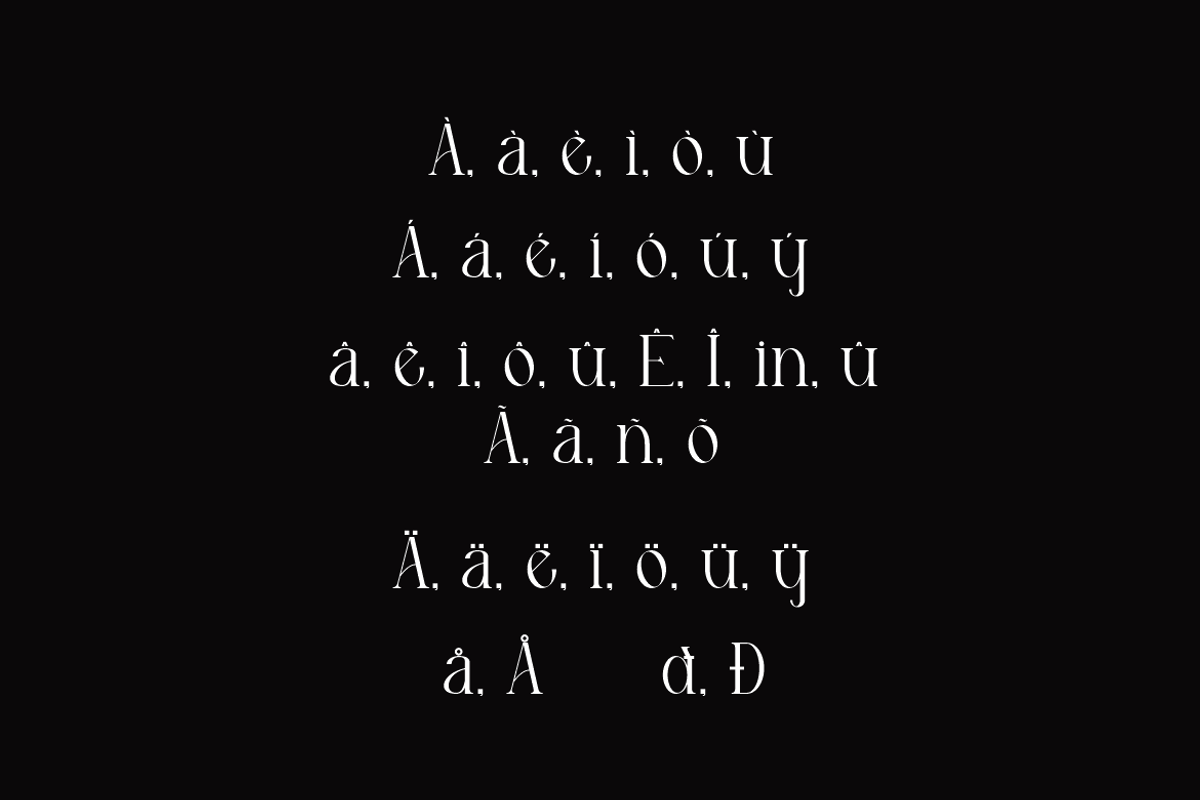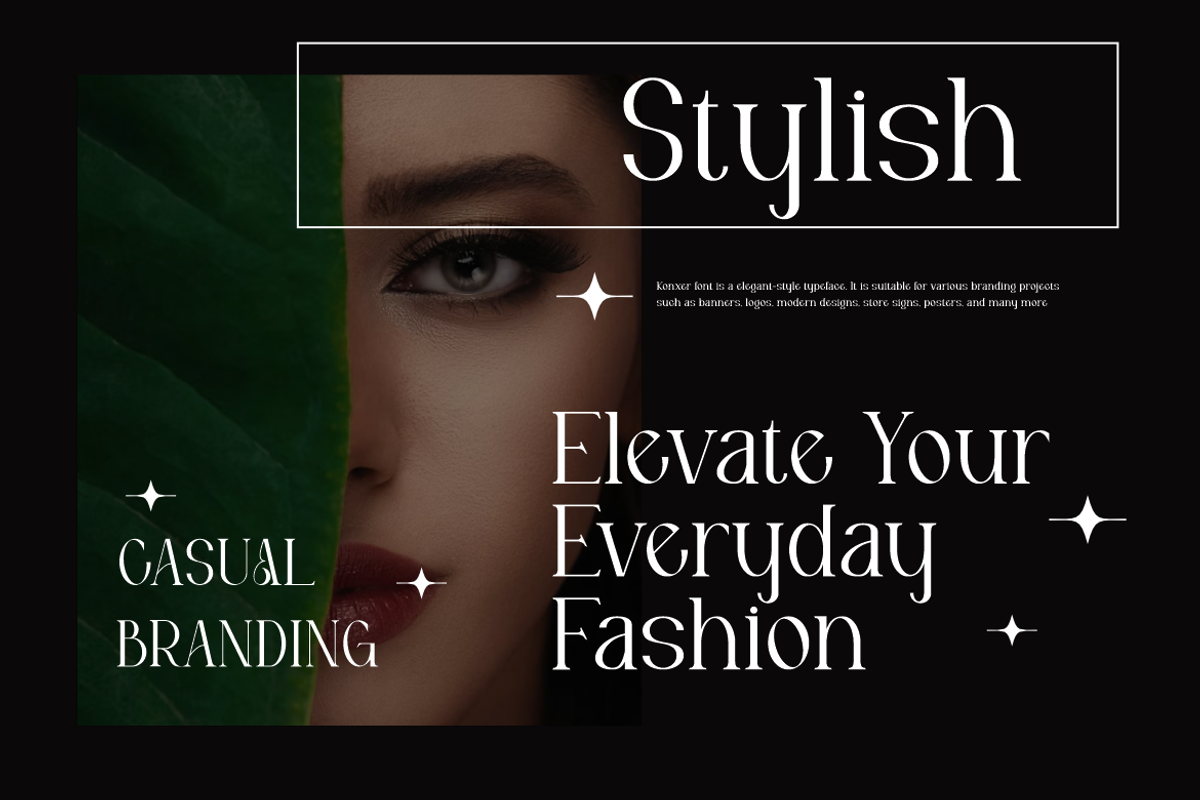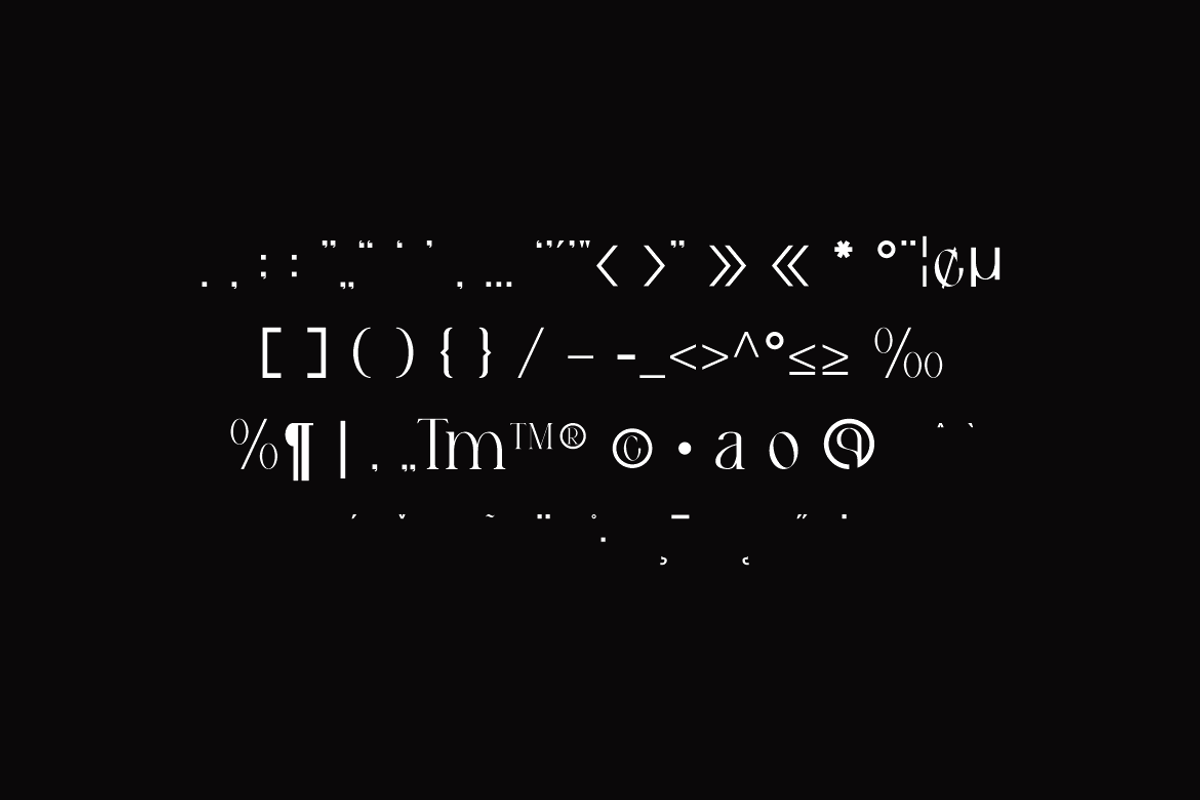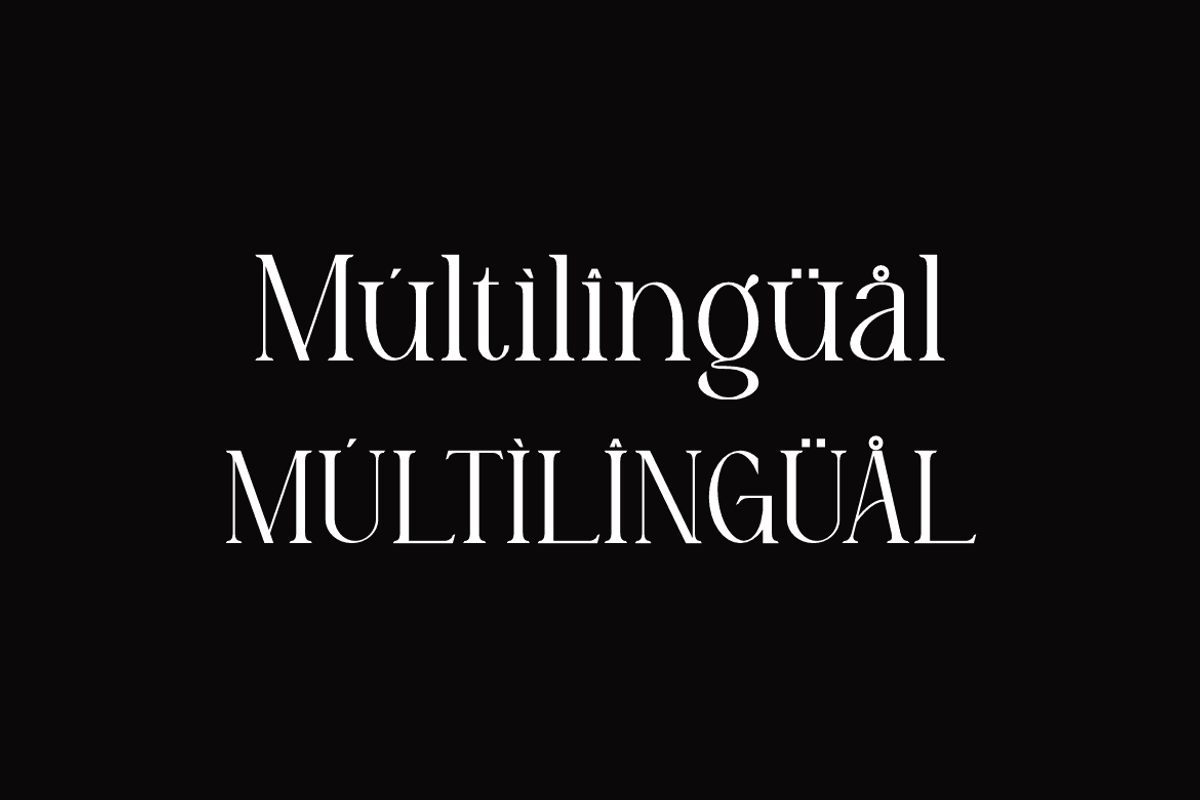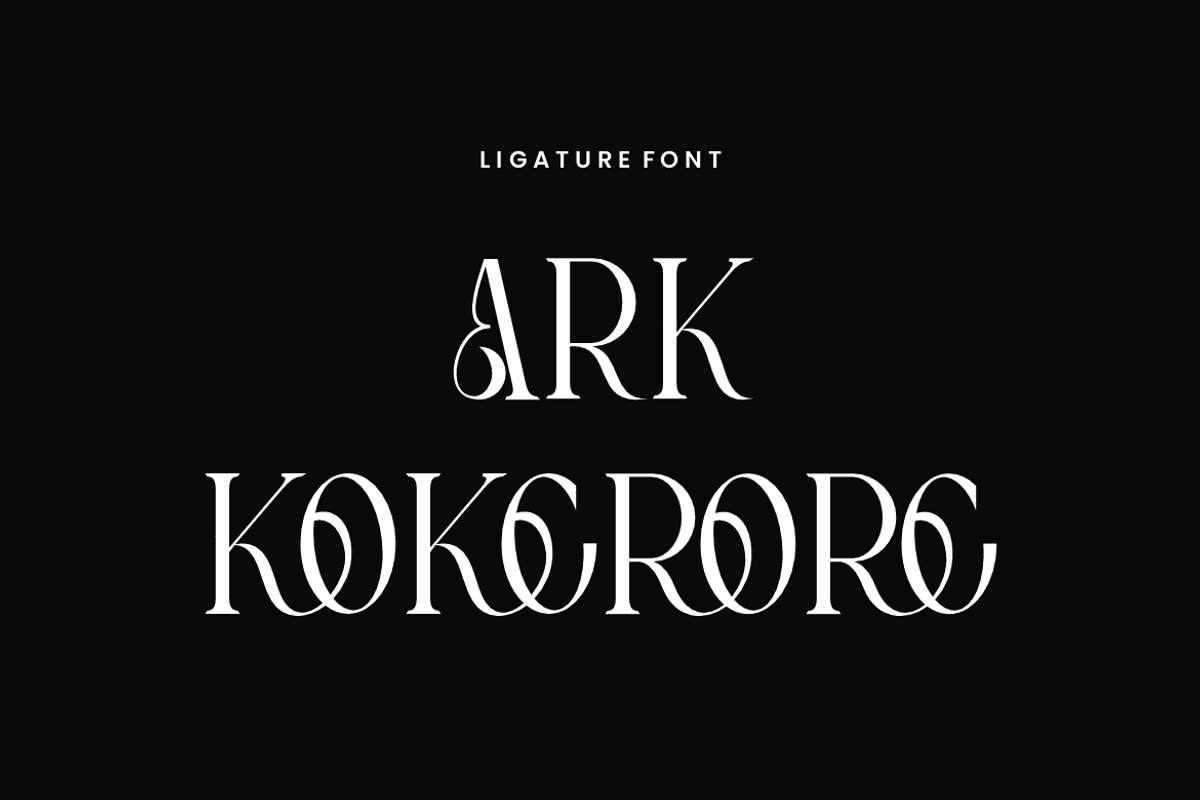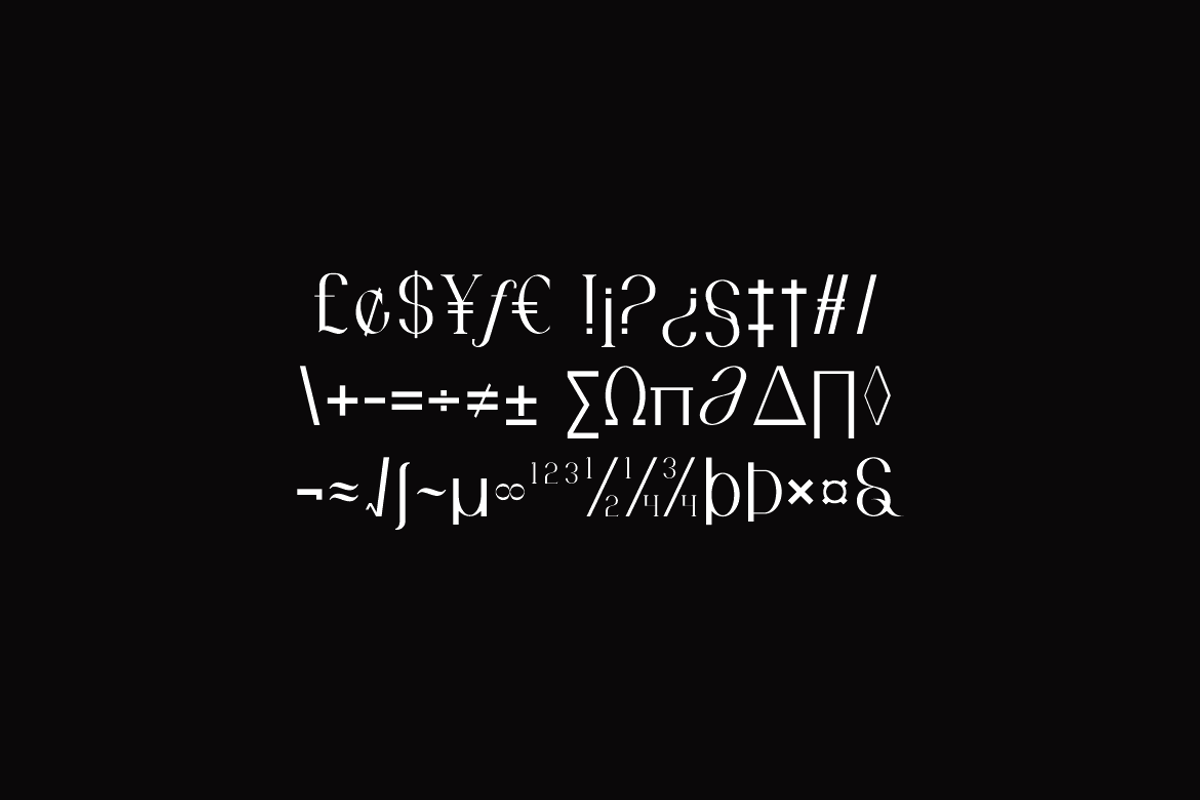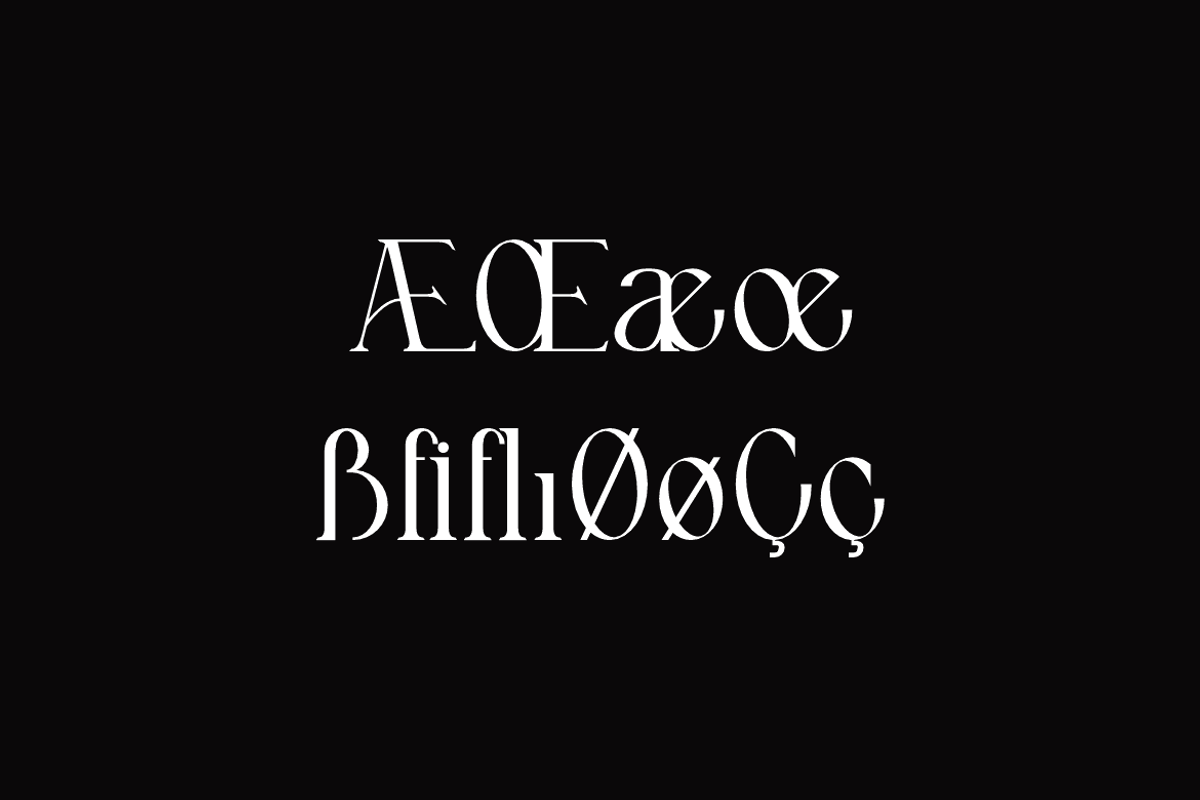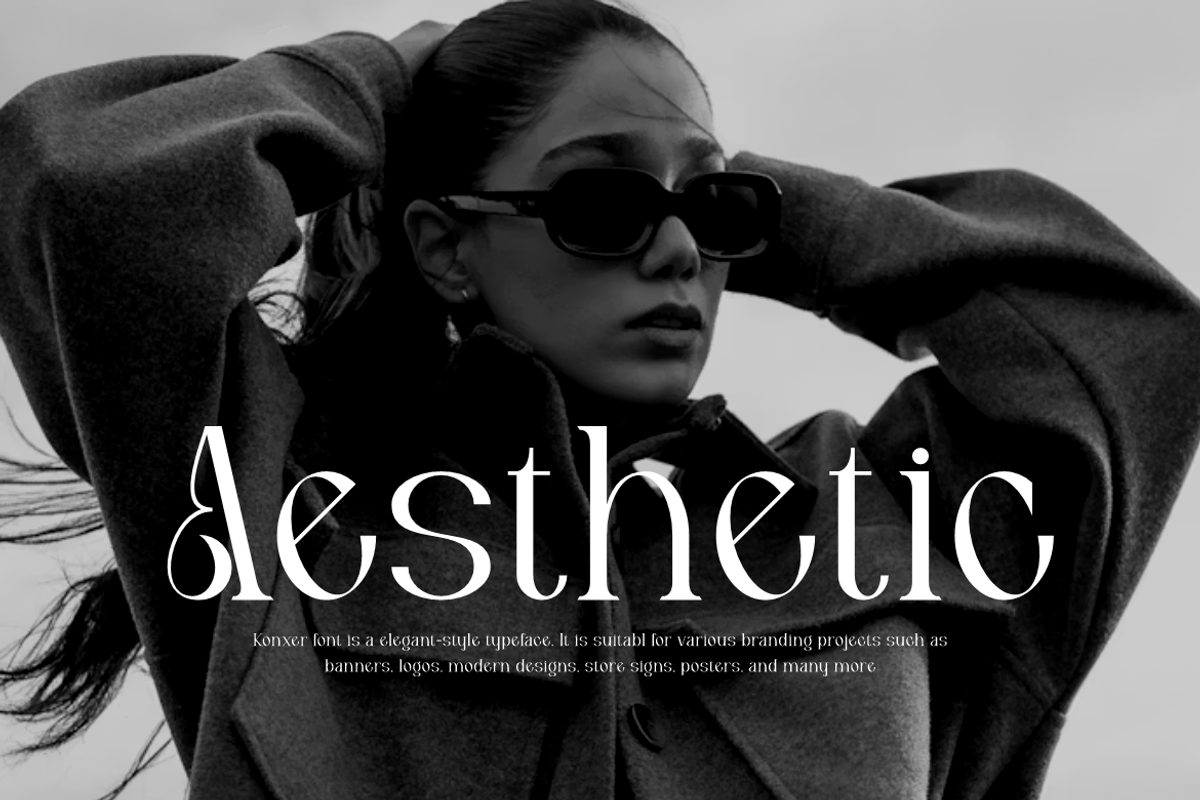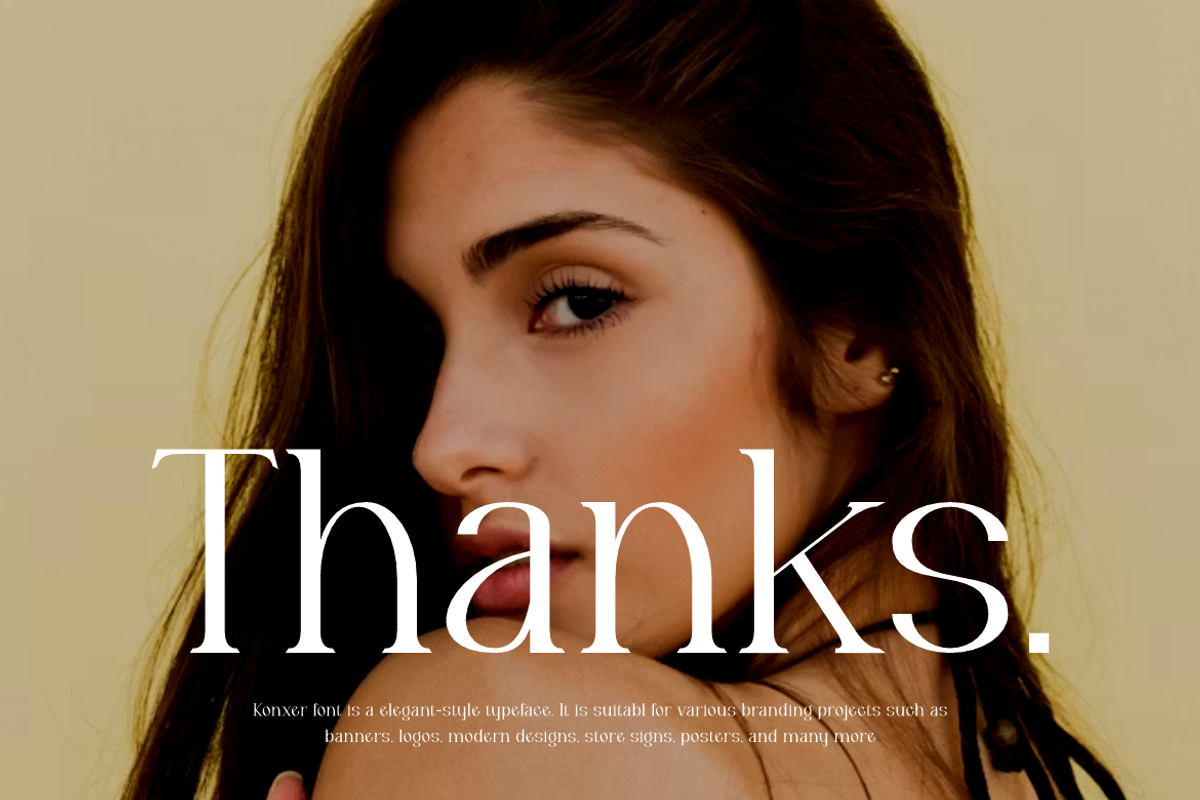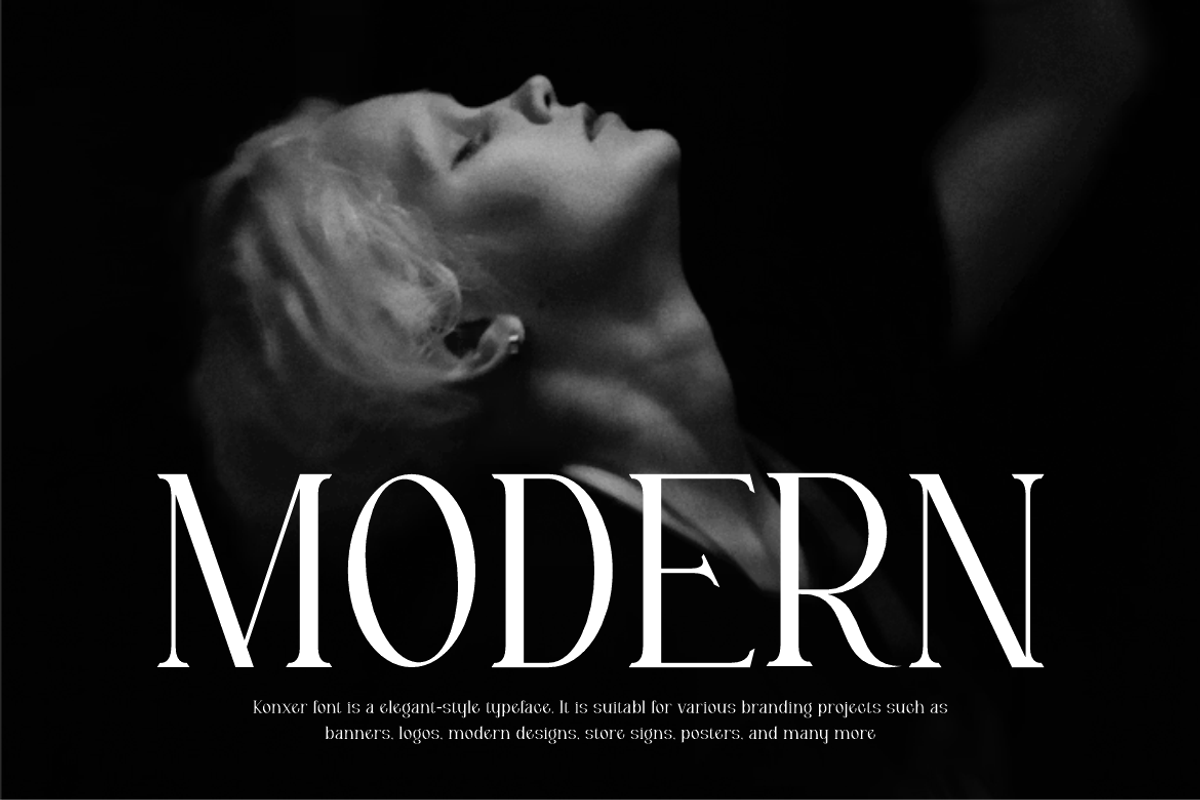
Konxer - Aesthetic Serif Font
Konxer Font is a serif and authentic display typeface.
It’s perfect for various branding projects such as logos, modern designs,
and more. This font stands out beautifully in a wide range of contexts.